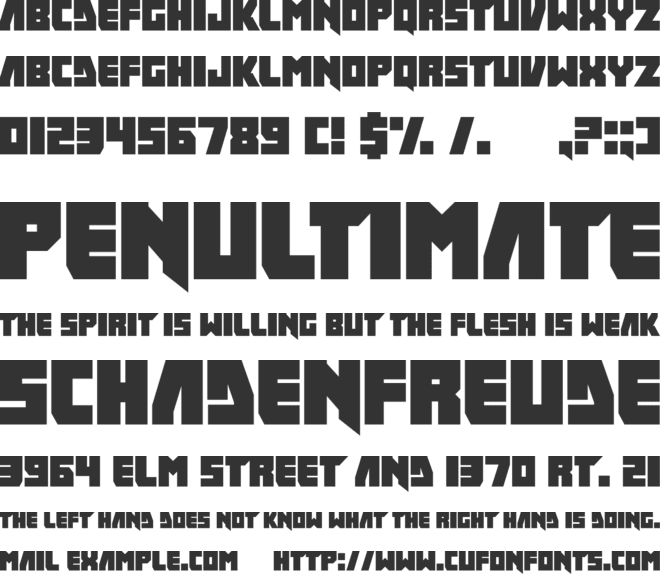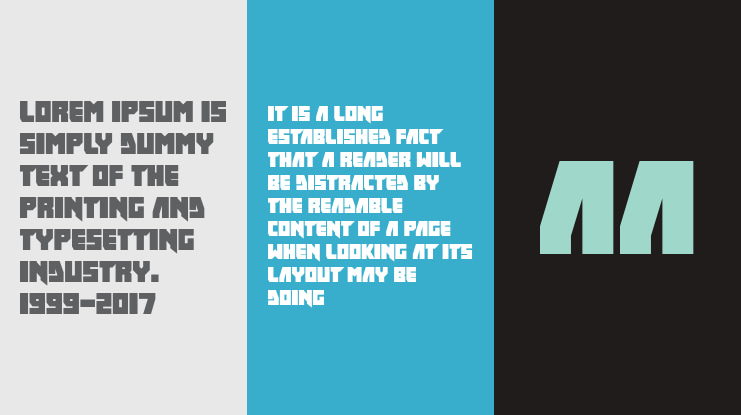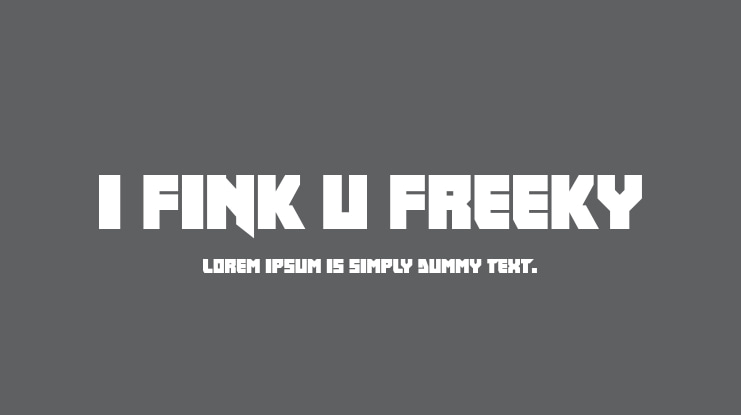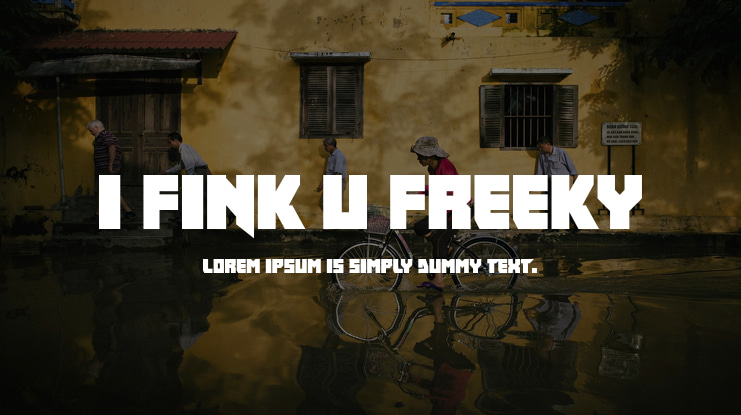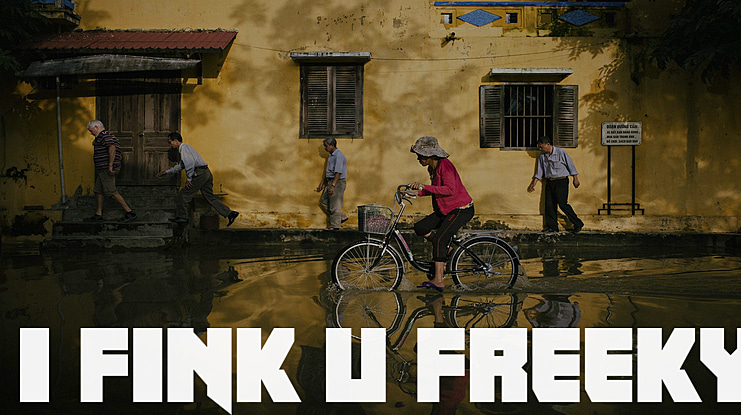
I fink u freeky Font
Frédéric Rich
This font is inspired by lettering used by the band Die Antwoord. Punctuation, numbers, symbols, accented characters and Cyrillic letters were freely added.
This font is inspired by lettering used by the band Die Antwoord. It is free to use for any purpose. Punctuation, numbers, symbols, and Cyrillic letters were freely added. If you want to get in touch, please contact me :